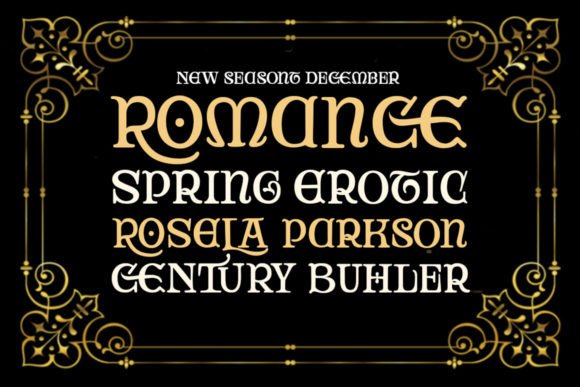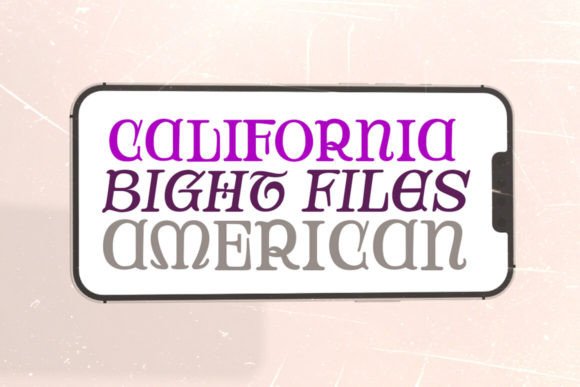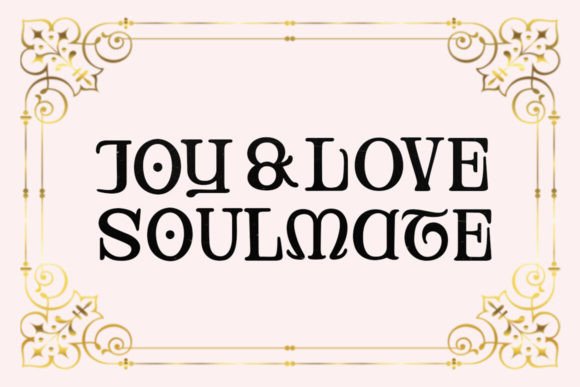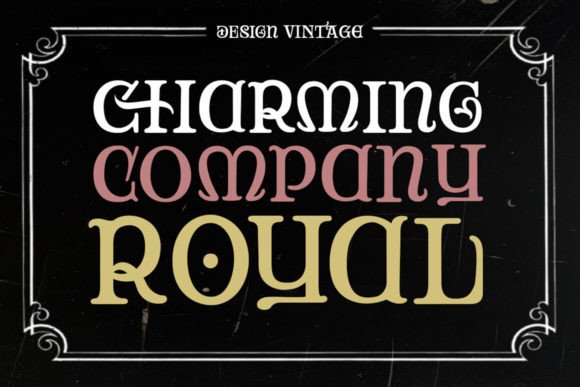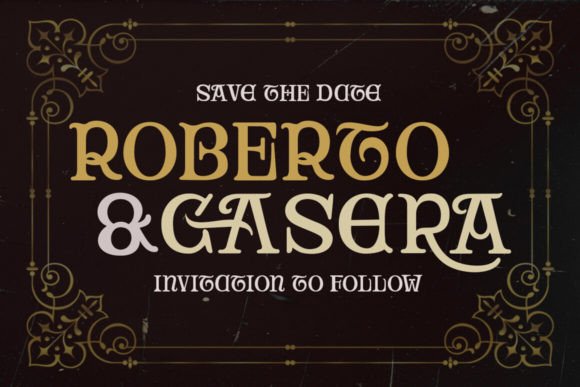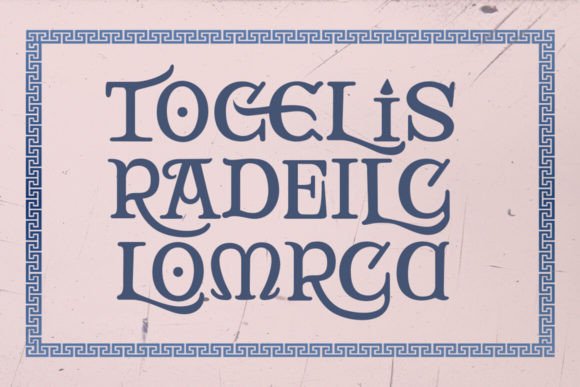
Introduction to Rocky Aston Font
You’ve spent hours brainstorming the perfect concept for your latest design project, pouring over inspiration boards and sketching out ideas. Finally, the moment of truth arrives – it’s time to choose a font that will bring your vision to life. That’s where the Rocky Aston Font comes in, a vintage-inspired typeface that’s perfect for making a statement.
This clean and letterpress-style font is a design resource that’s hard to resist, offering a unique combination of organization and originality that’s sure to elevate your creative project. With its high-quality design and transparent background, the Rocky Aston Font is a free download that’s perfect for branding, emblems, advertising, and more.
Key Features of Rocky Aston Font
- Features a unique and stylish aesthetic, perfect for adding a touch of sophistication to any design project.
- Suitable for a wide range of creative projects, including logos, branding materials, and print designs.
Honest Review: Rocky Aston Font
I recently had the chance to experiment with the Rocky Aston Font, and I must say, it’s been an exciting experience. As a designer, I’m always on the lookout for high-quality design resources that can elevate my creative projects. The Rocky Aston Font certainly fits the bill.
- ✨ High-quality font with crisp lines and a clean design.
- ✨ Offers a transparent background, making it easy to overlay on images or use as a standalone element.
- ✨ Perfect for a variety of creative projects, from logos to digital art.
- ⚠️ Limited customization options, which might be a drawback for some designers.
- ⚠️ Not ideal for use in small text sizes, as the font can appear fuzzy.
Overall, I’m impressed with the Rocky Aston Font. While it may have some limitations, its high quality and versatility make it a valuable addition to any designer’s toolkit. And the best part? It’s available for free download, making it an excellent choice for those on a budget.
The Rocky Aston Font is a high-quality design resource that can be used to add a touch of elegance to your creative project. It’s available for free download, making it an ideal choice for designers and non-designers alike.
- Use it on a transparent background for a clean and modern look.
The Rocky Aston Font is ideal for use in a variety of creative projects, including:
- Business cards and marketing materials.
- Social media graphics and advertisements.